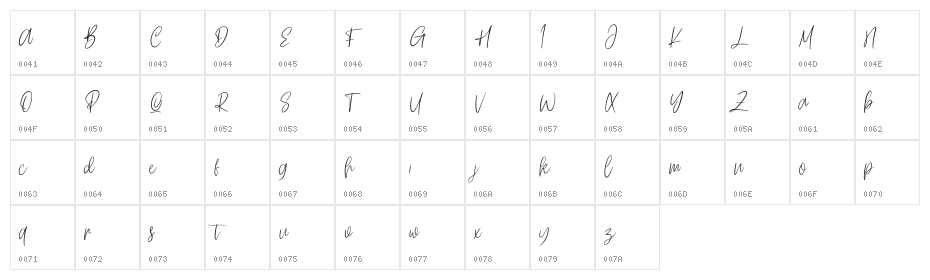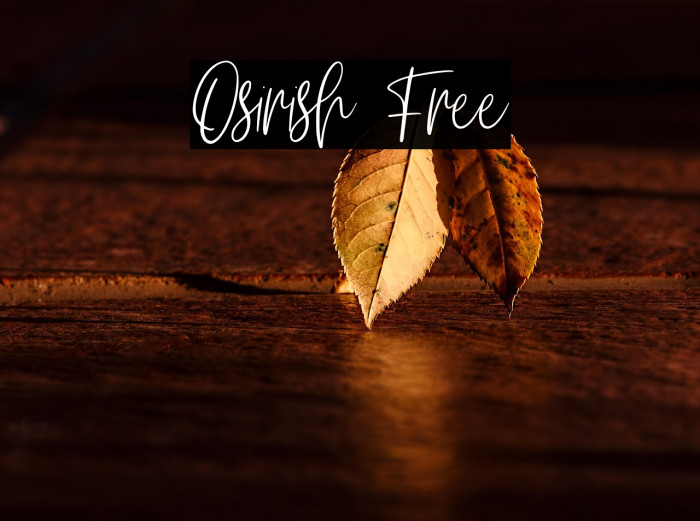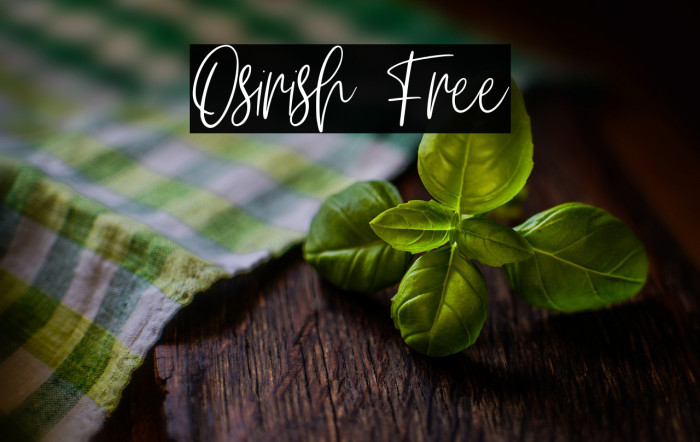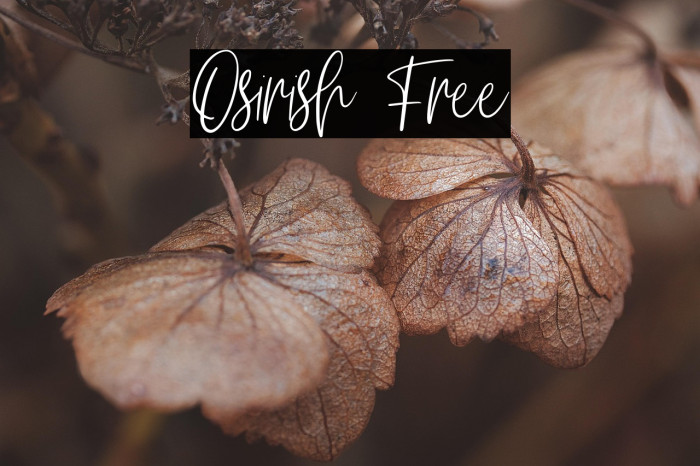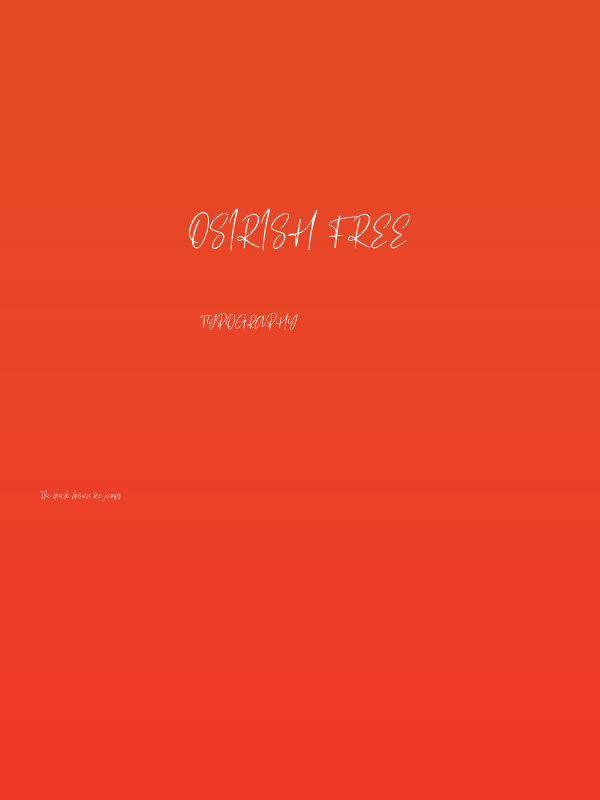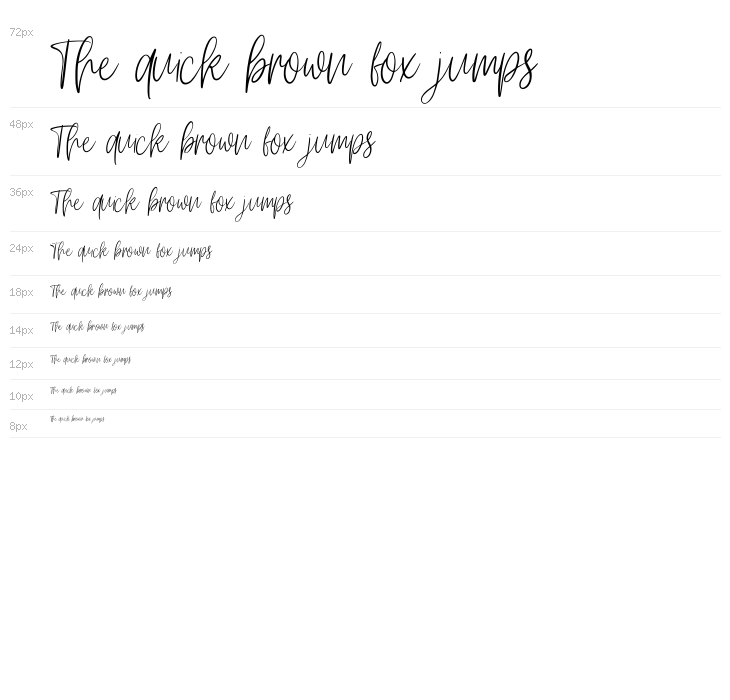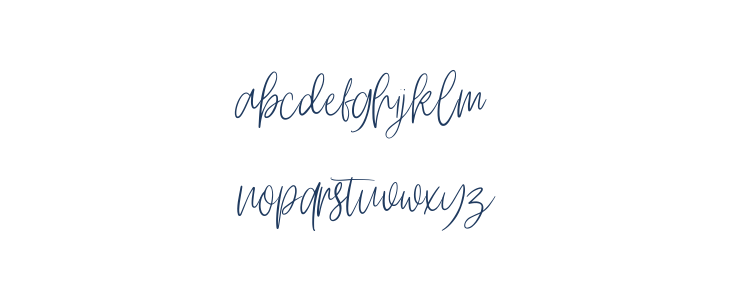
Osirish Free Font
Osirish Free Description
This font features a flowing, cursive style with elegant, sweeping strokes that give it a handwritten appearance. The letters are connected in a fluid manner, creating a sense of movement and grace. The uppercase letters are bold and prominent, while the lowercase letters maintain a consistent flow. The font includes a full set of uppercase and lowercase letters, numbers, and a selection of special characters. Its design is both artistic and legible, making it suitable for a variety of creative projects. The strokes vary in thickness, adding a dynamic quality to the overall look.
| Proposed Projects | Ideal for wedding invitations, greeting cards, branding, and artistic projects requiring a personal touch. |